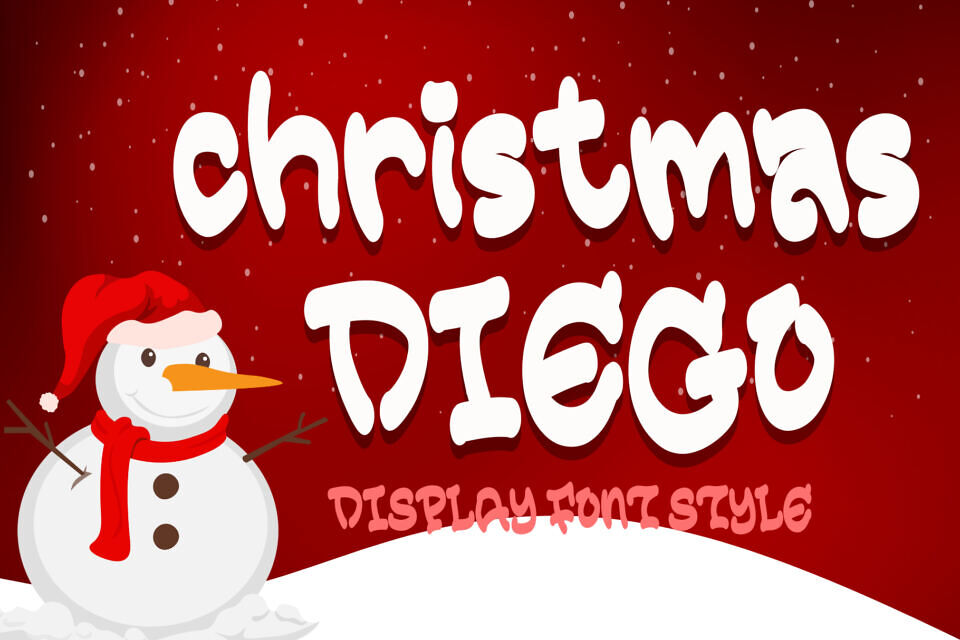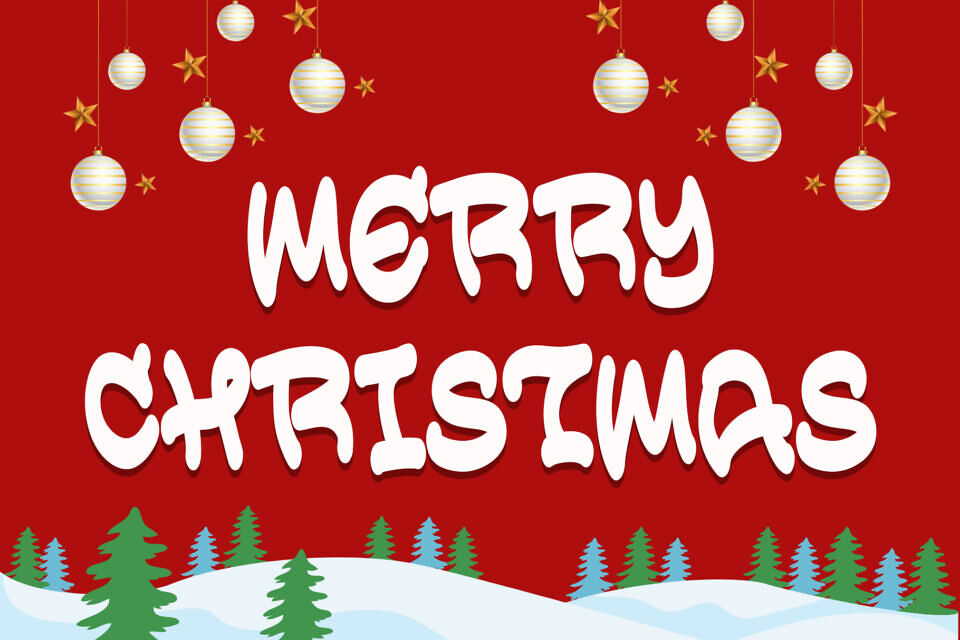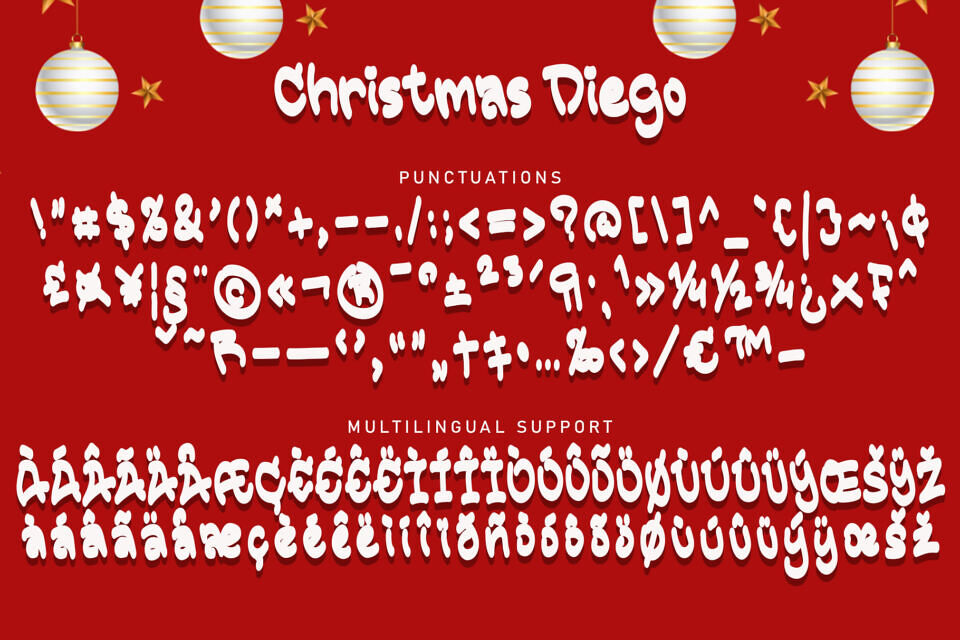
Christmas Diego is a cheerful and bold display font bursting with holiday spirit! With its playful, rounded letters and snow-like charm, it’s the perfect typeface for Christmas cards, festive banners, winter crafts, and kids’ holiday projects. This font brings a warm, joyful vibe to any design, making it ideal for spreading seasonal cheer across print and digital formats.